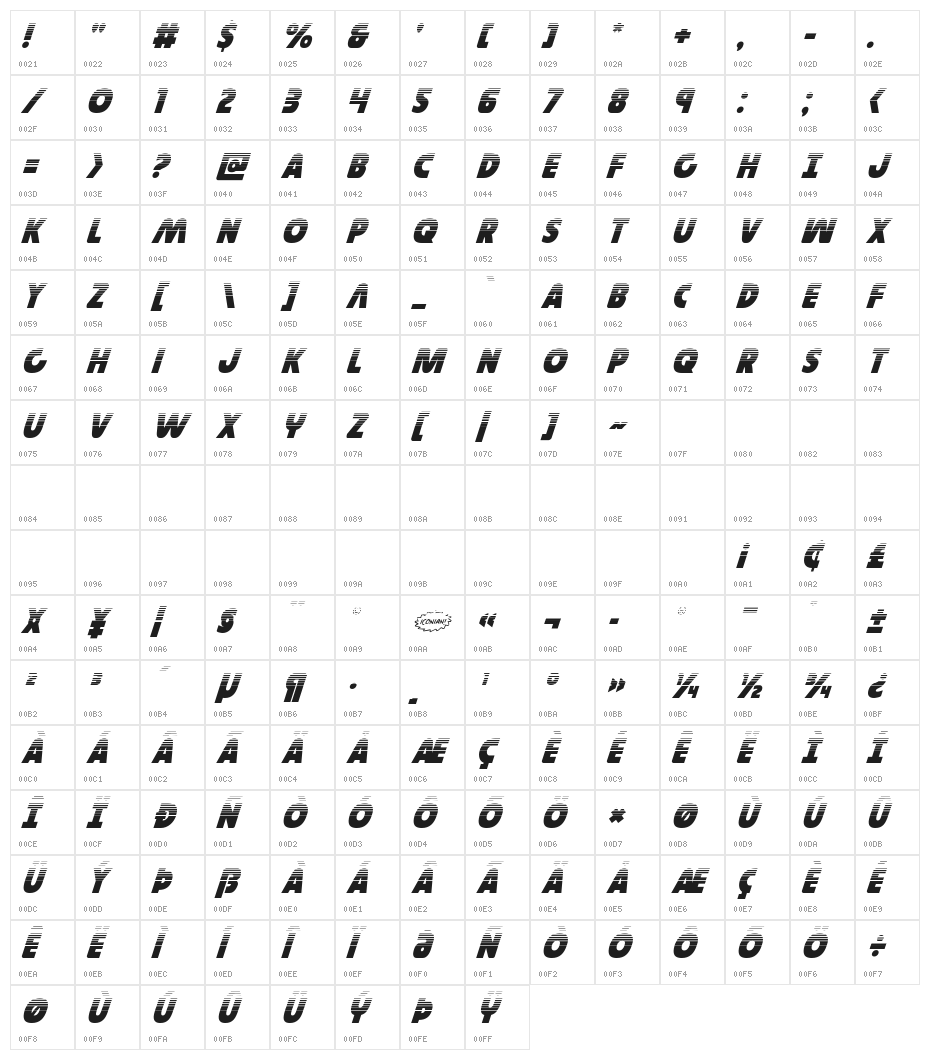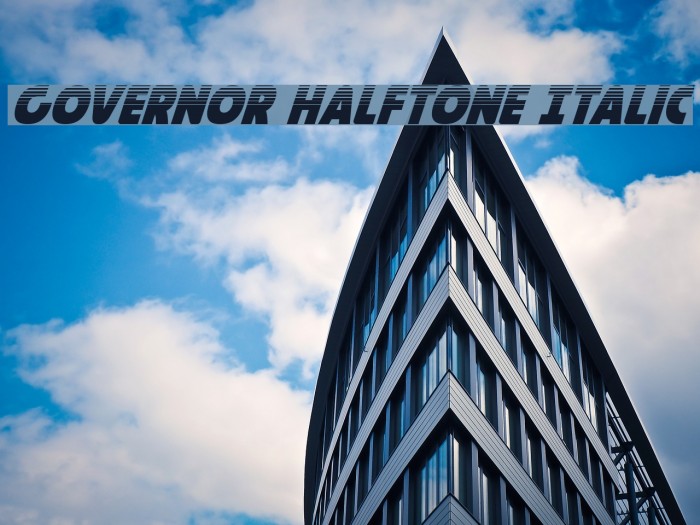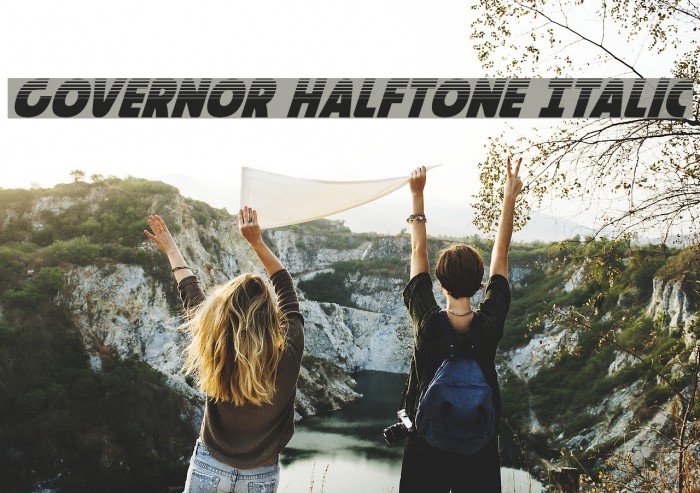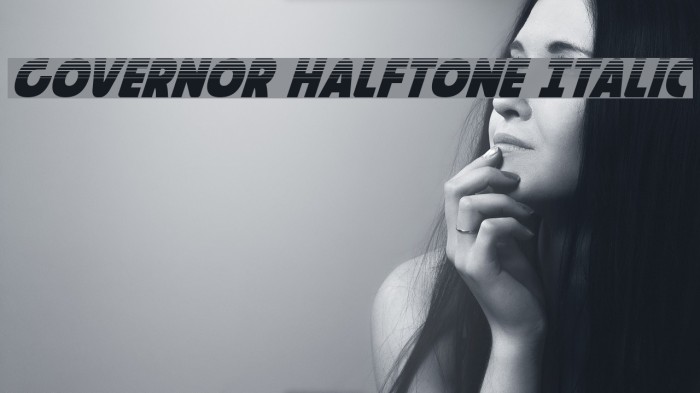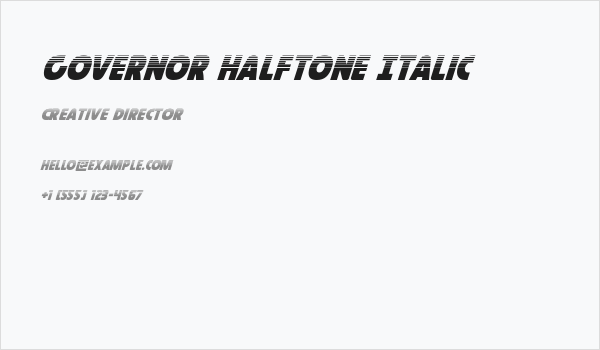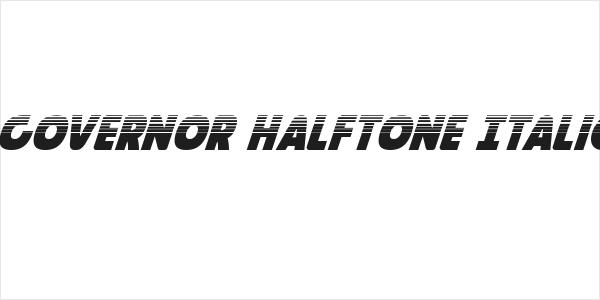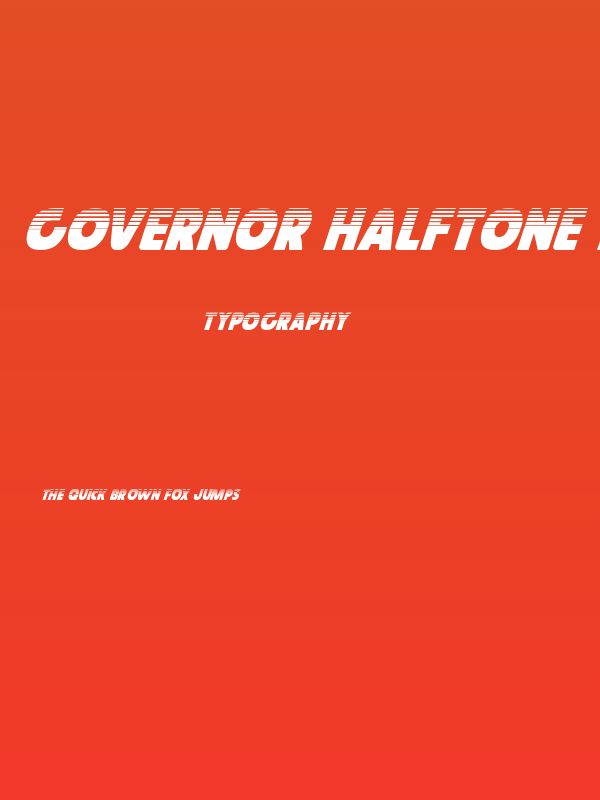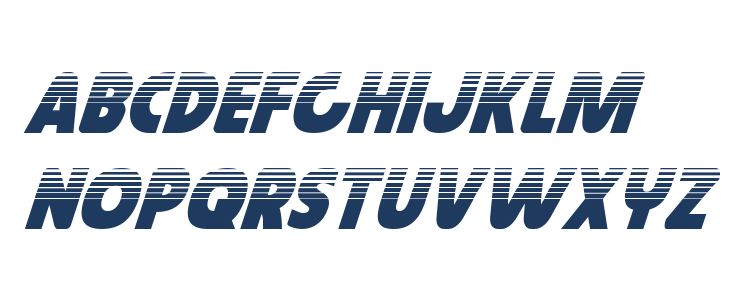
Governor Halftone Italic Font
Governor Halftone Italic Description
This font features a bold, italicized style with a distinctive halftone effect that gives it a dynamic and modern appearance. The uppercase and lowercase letters are designed with a strong slant, enhancing the italic nature of the font. The characters are wide and bold, with a unique striped pattern that adds depth and texture. The numbers and special characters follow the same design principles, ensuring consistency across all glyphs. This font is ideal for making a strong visual impact, with its eye-catching design and bold presence.
| Proposed Projects | Ideal for posters, headlines, branding, and any project requiring a bold, modern aesthetic. |